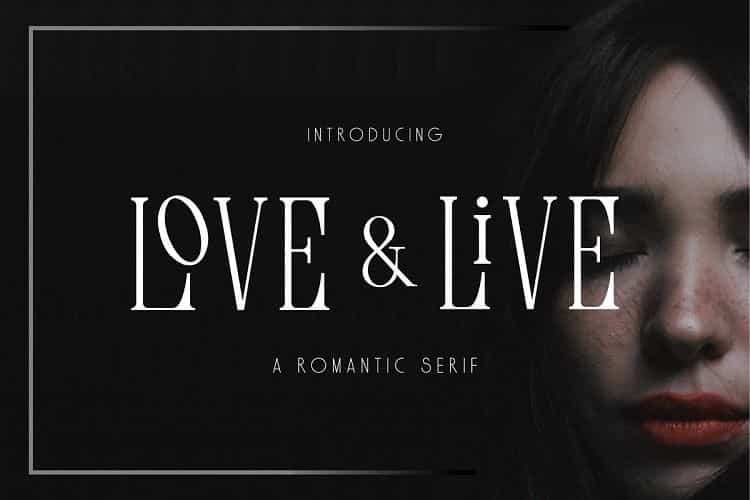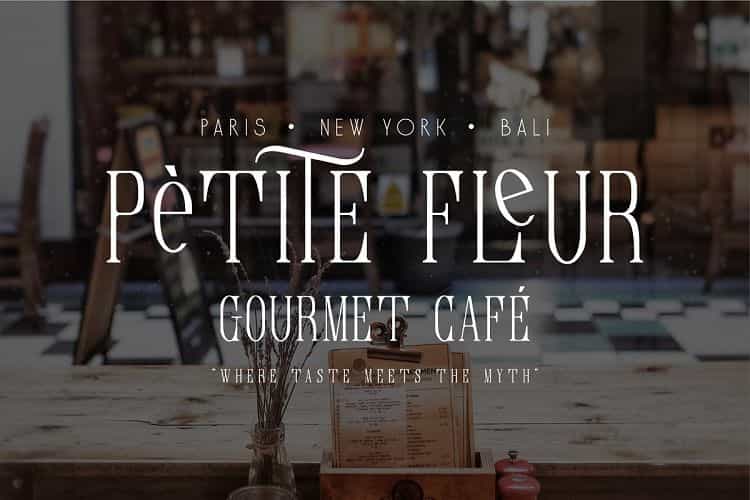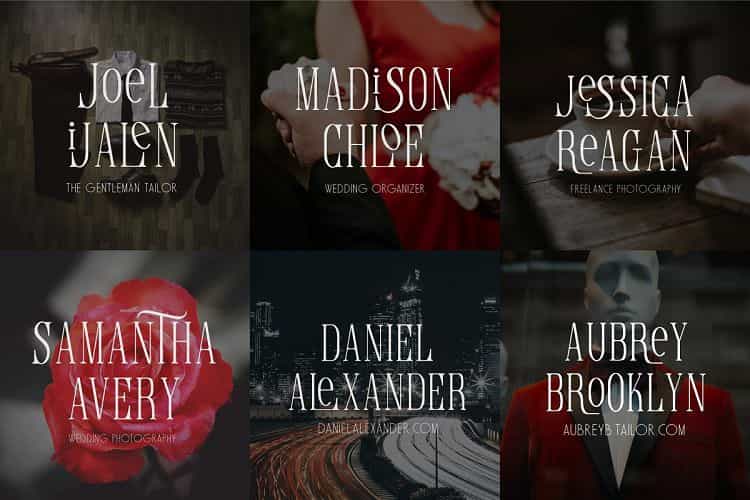
Here is Love & Live Font. It is created by Drizy, this font is for premium users and it can be bought on creativemarket but the good news is that today it is free to download. Love & Live!a new serif font by drizy!This nice and simple all-caps serif typeface is characterized by its smooth lines. In upper case letters, numbers and multilingual, ligatures, stylistical and punctual.